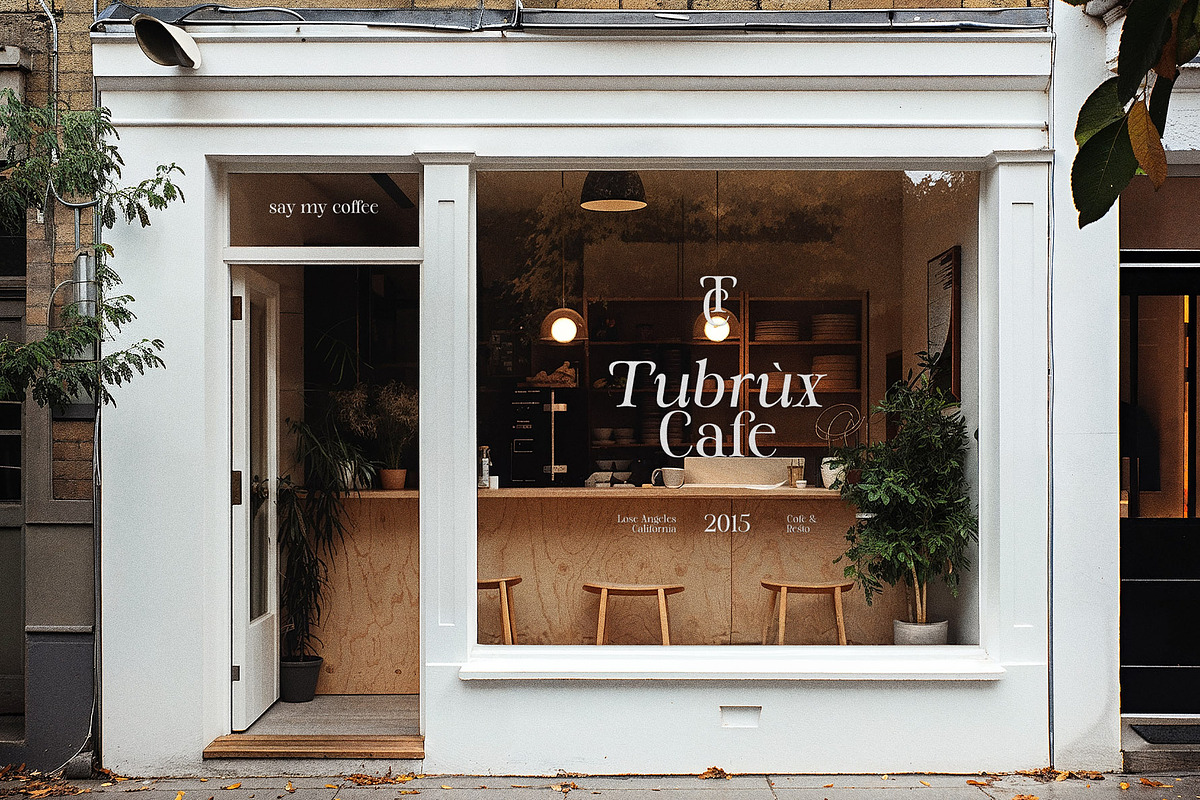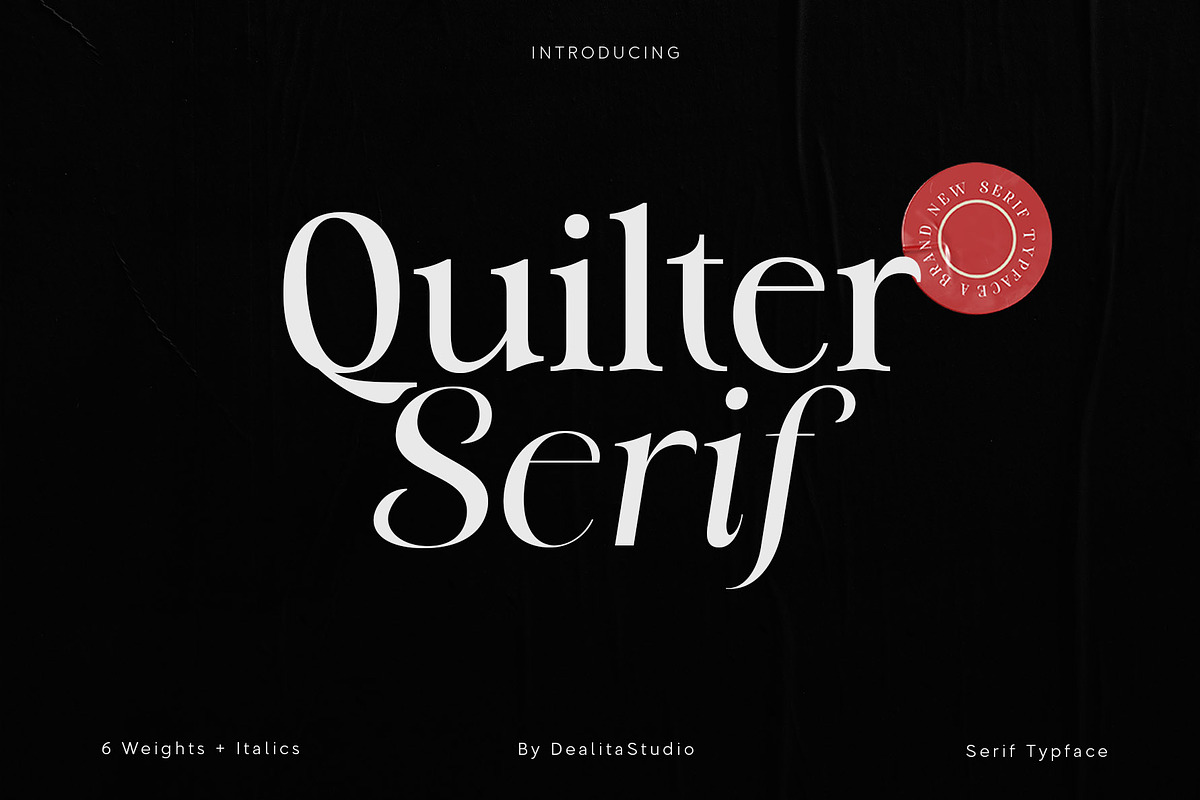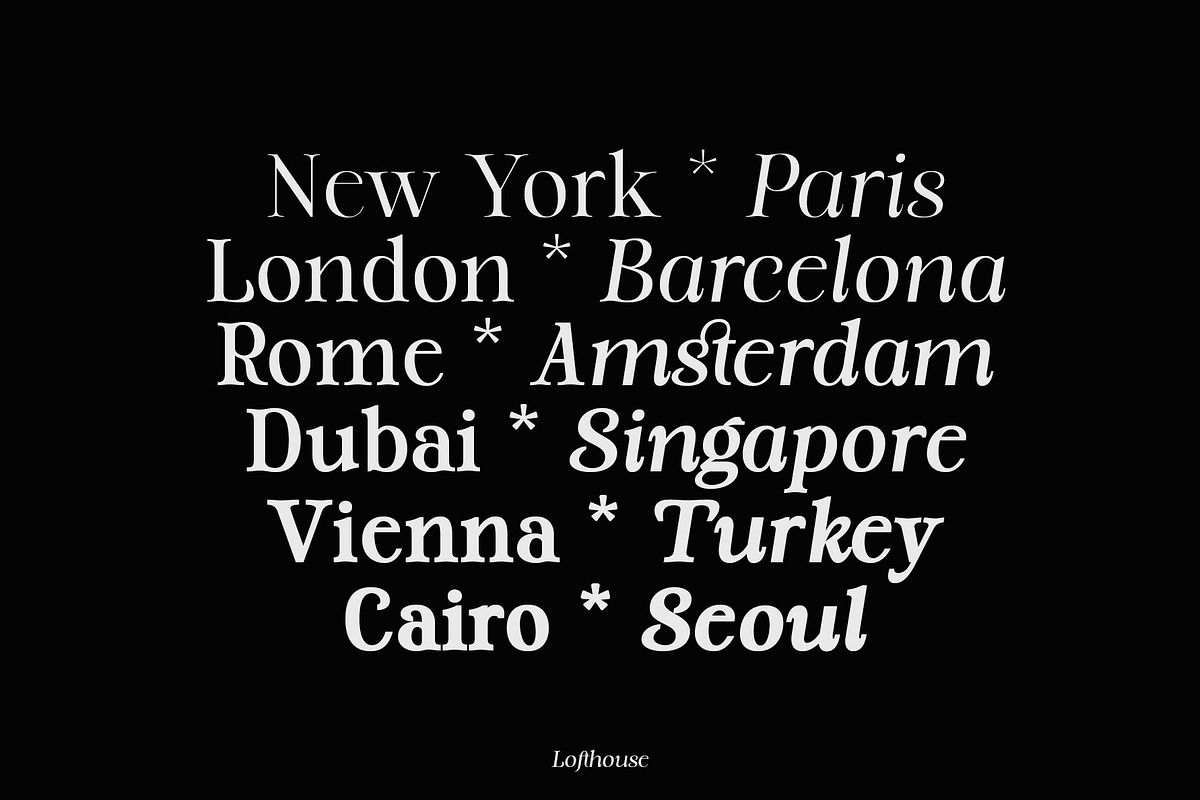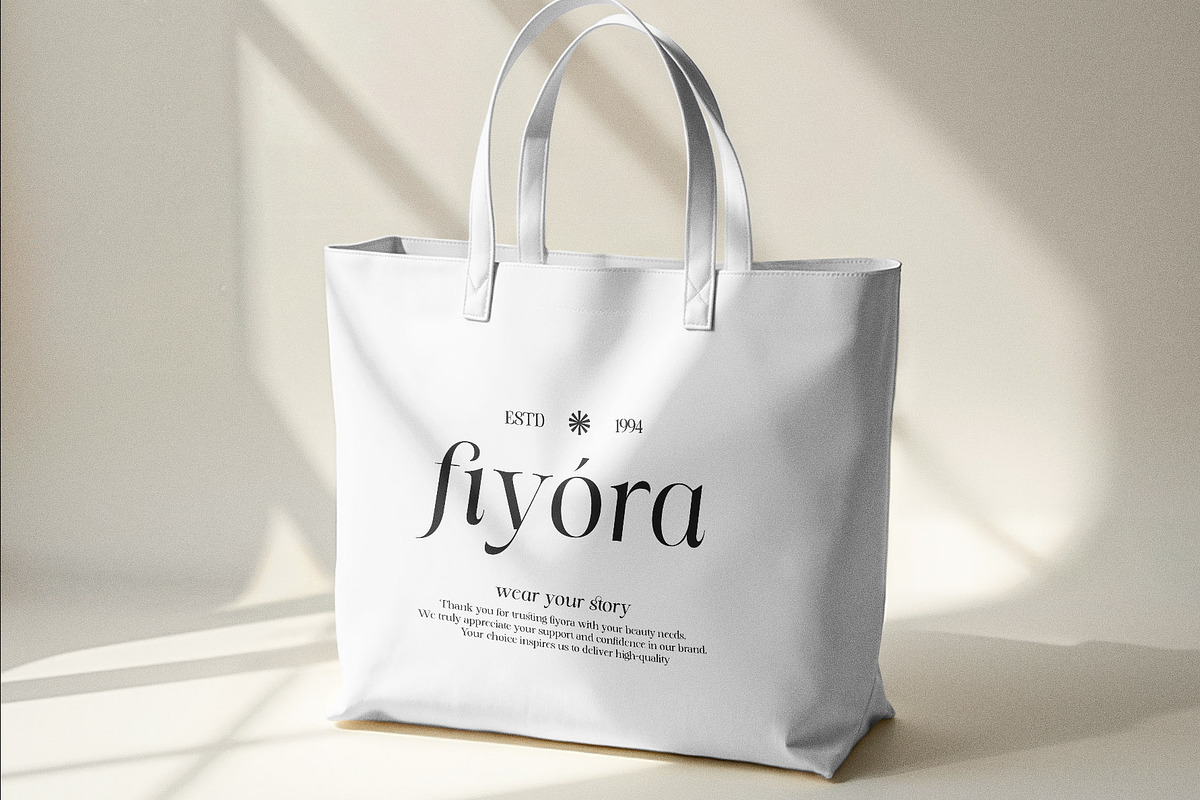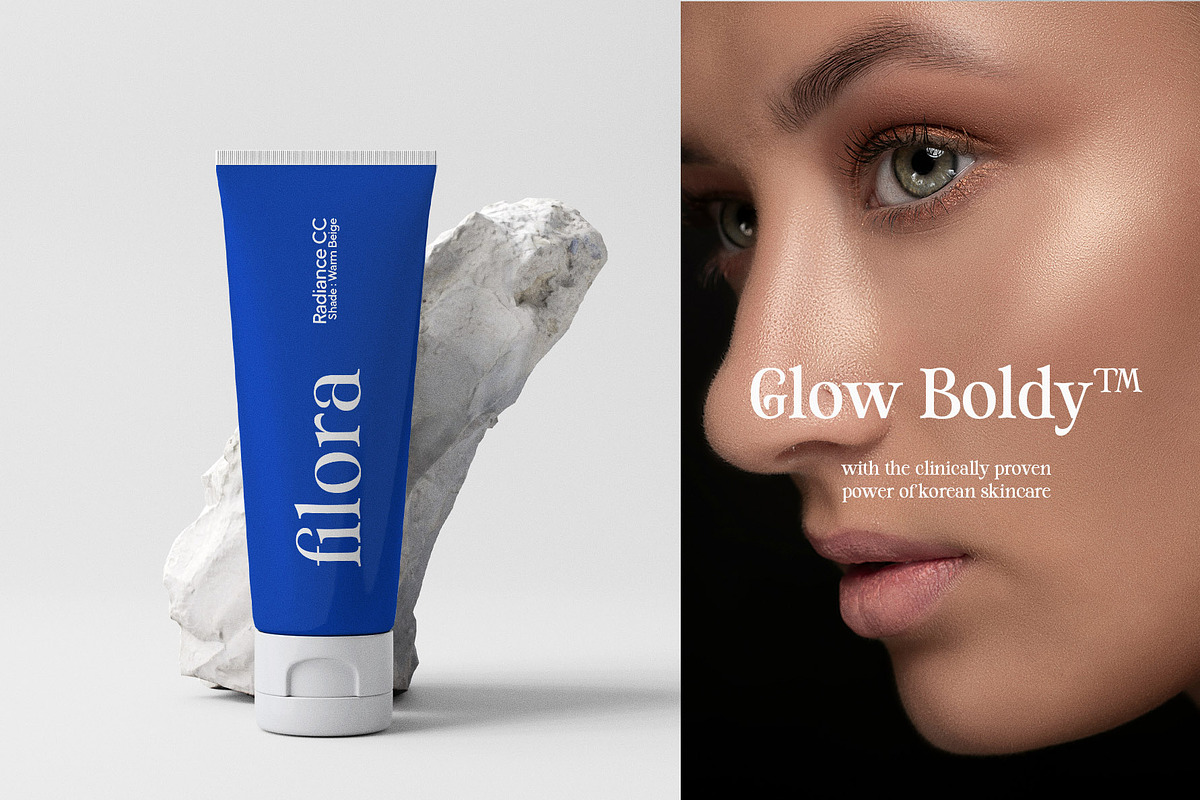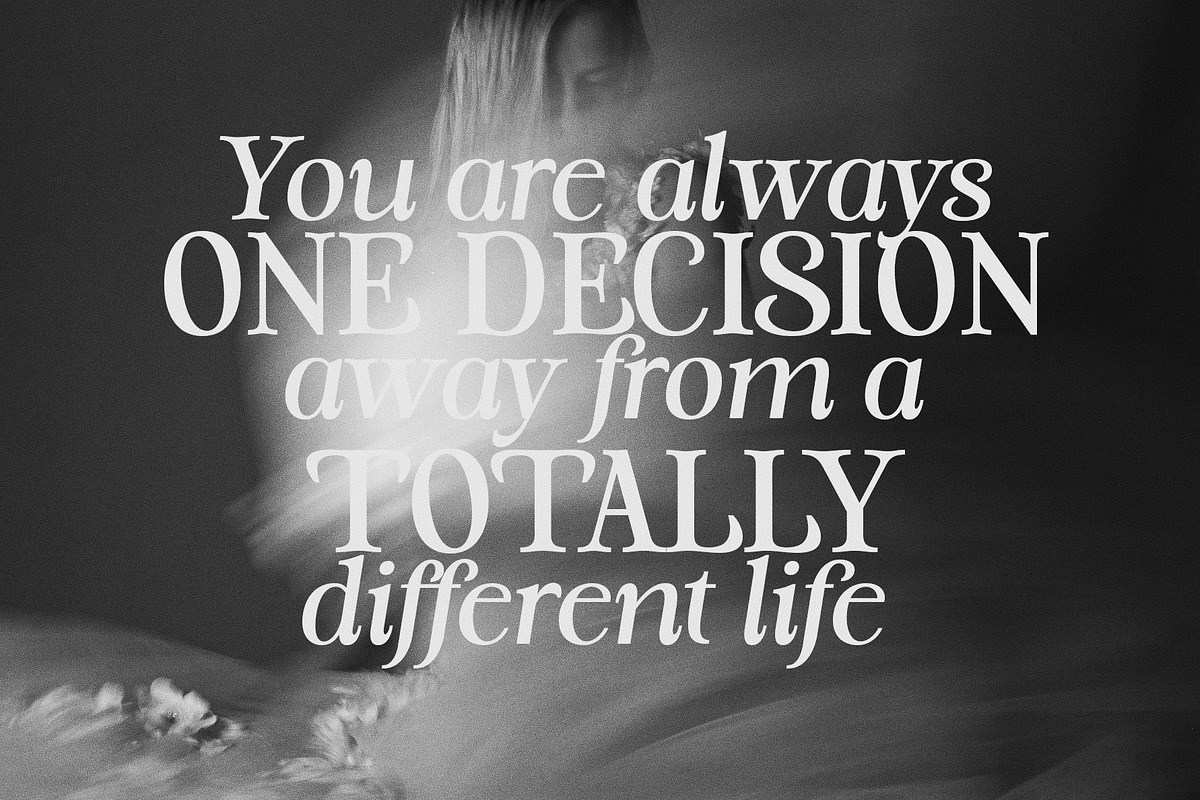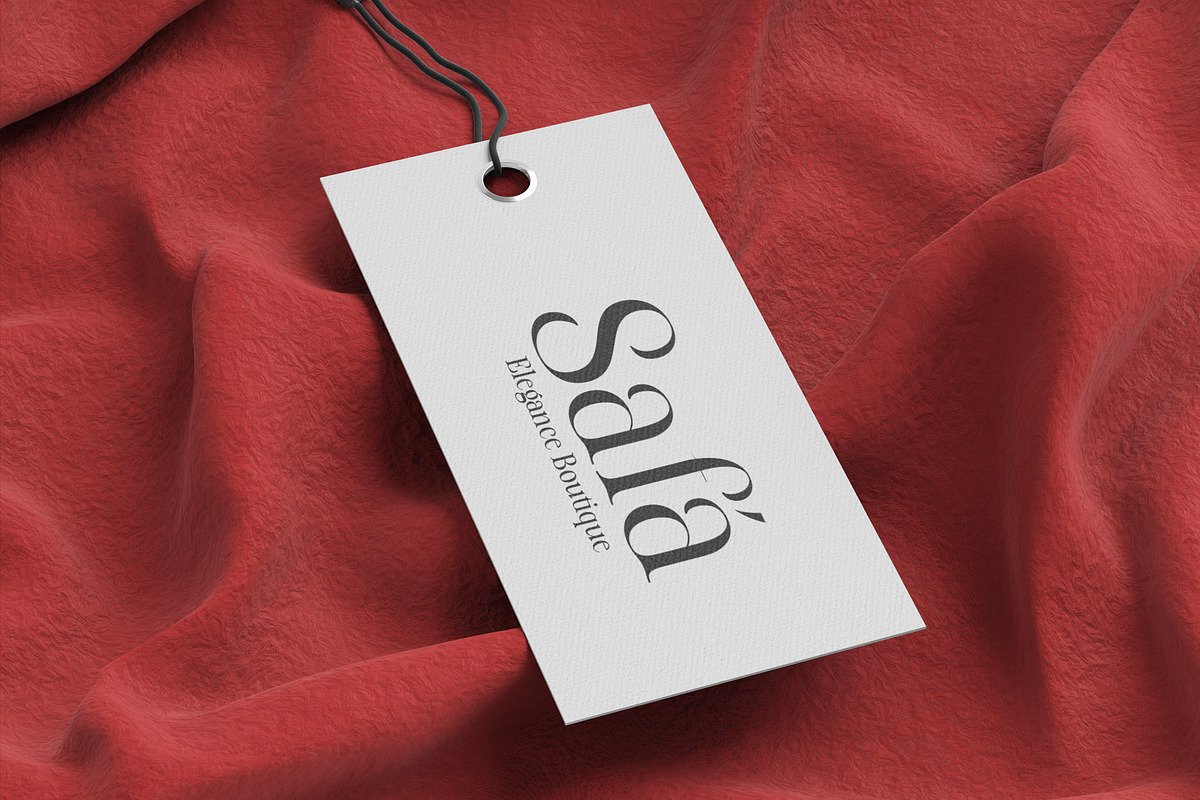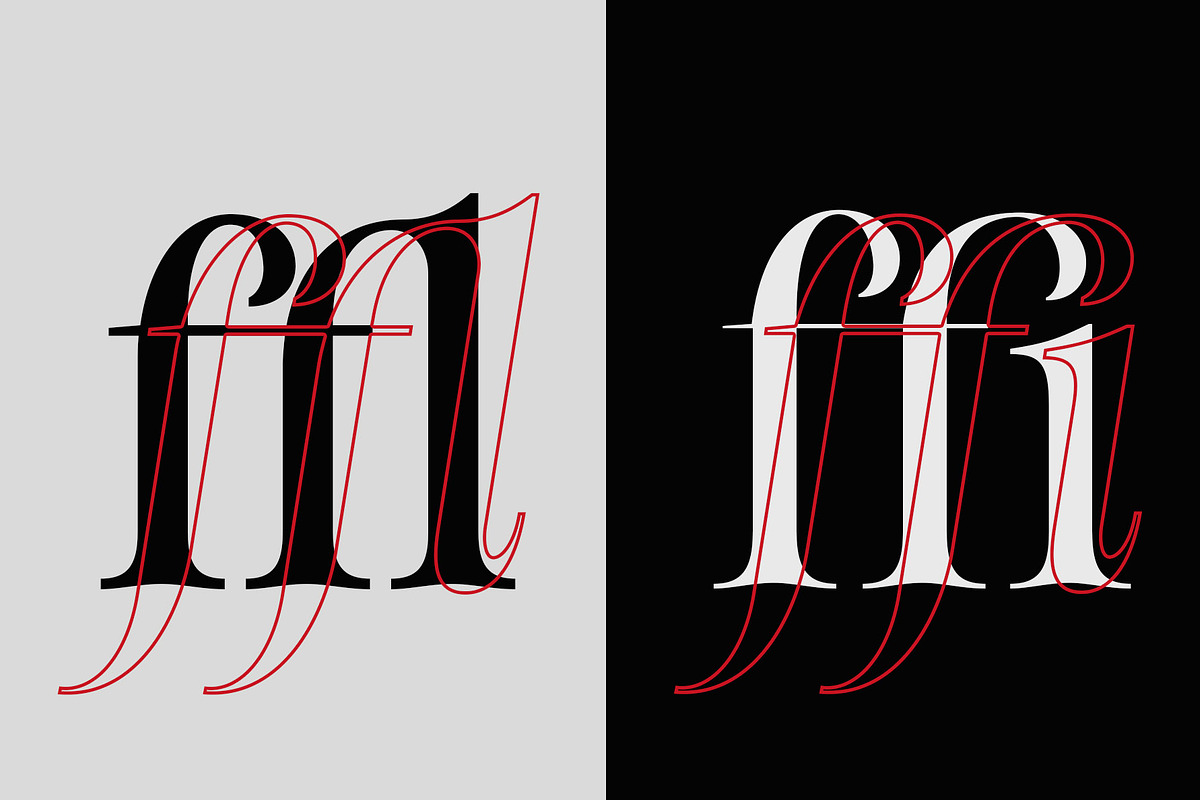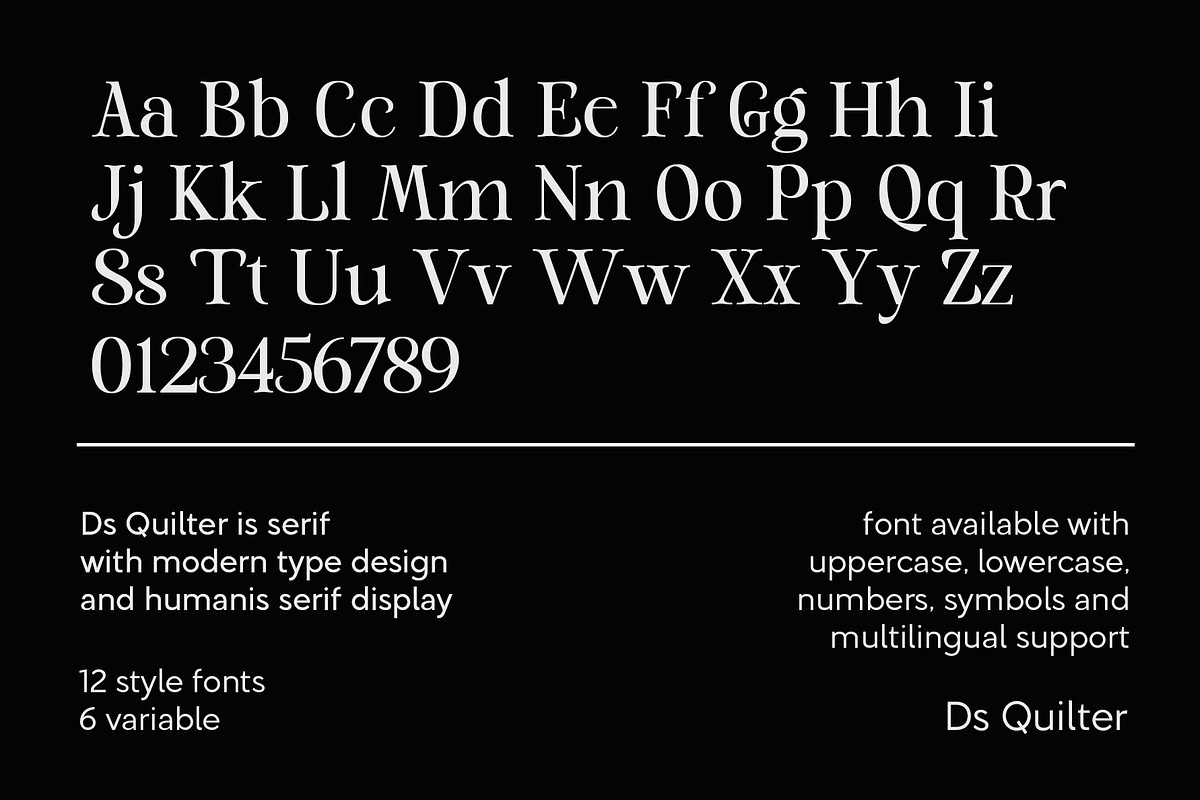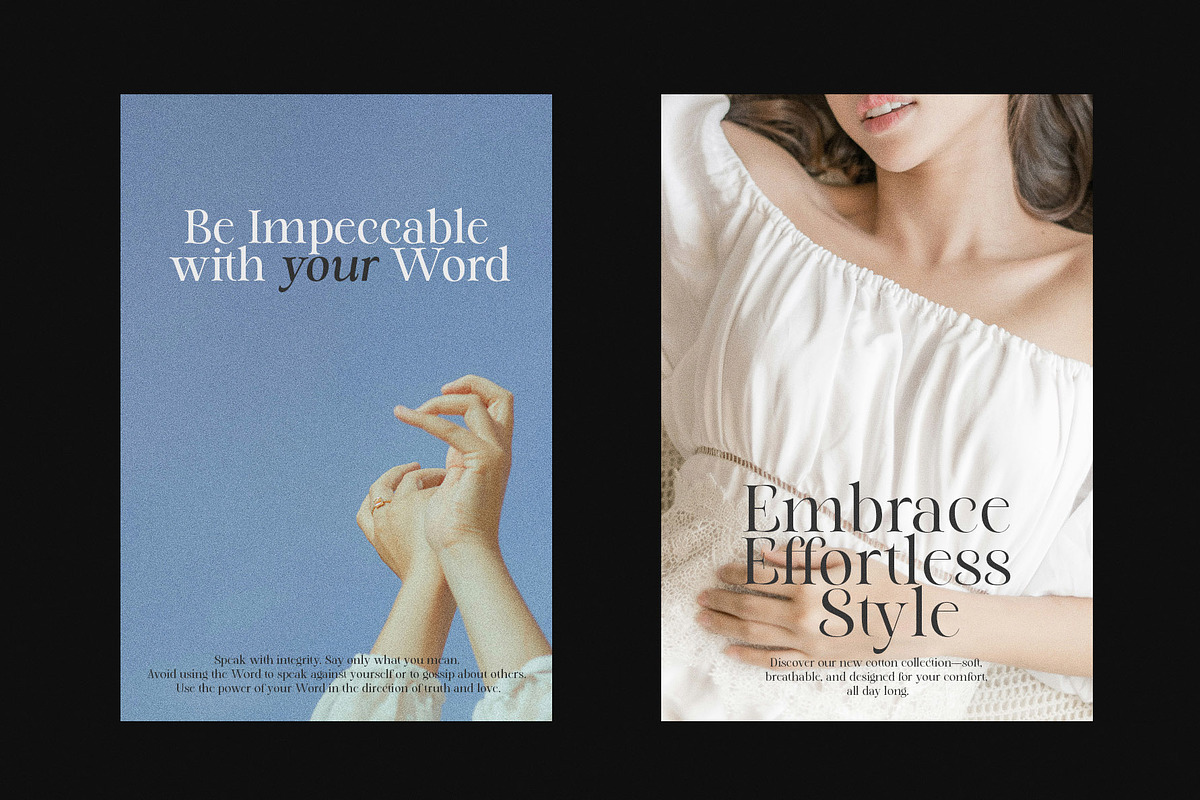
DS Quilter - Variable Luxury Serif
DS Quilter — Variable Luxury Serif DS Quilter is a sophisticated variable serif engineered for high-end responsive design and luxury branding. Spanning from Light to ExtraBold in a single file, it delivers seamless weight transitions and minimalist elegance for elite visual identities.
Best For:
- Niche Perfume & Fragrance Logos
- High-End Skincare & Beauty Branding
- Editorial Layouts & Premium Magazines
- Responsive Web & Digital Typography
Technical Specs:
- Variable Technology (Light to ExtraBold)
- 30 Elegant Ligatures for fluid typography
- 256+ Glyphs | Global Multilingual Support